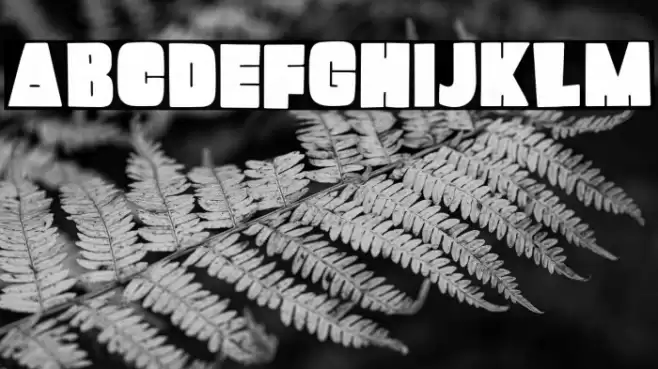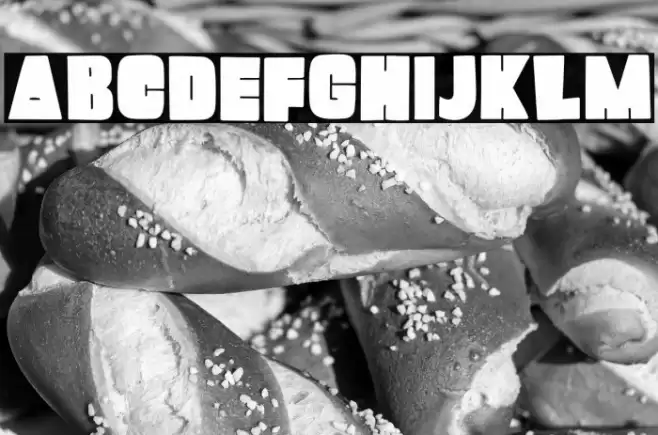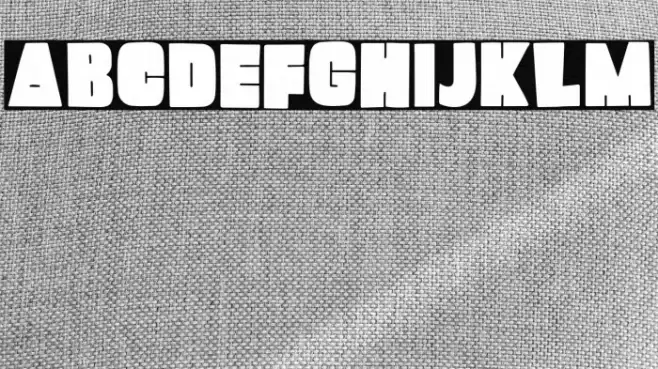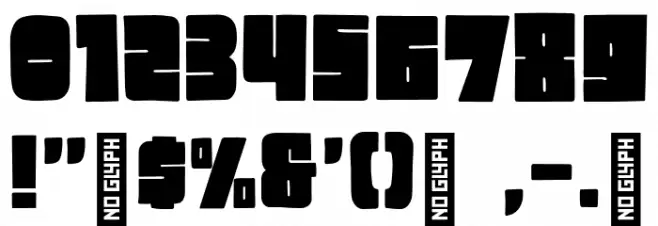
Mango Pudding Font
Mango Pudding Description
This font features bold, blocky characters with a playful and chunky appearance. The letters are uniformly thick, creating a strong visual impact. The style is reminiscent of retro or vintage designs, with a modern twist. The uppercase and lowercase letters maintain a consistent weight, contributing to a cohesive look. The numbers and special characters follow the same bold style, ensuring uniformity across all glyphs. The font's design is suitable for projects that require a strong, eye-catching headline or title.
Bold, blocky font with a playful, retro vibe from Cartoon fonts.
- Font: Mango Pudding
- Proposed Projects: Ideal for posters, logos, branding, and any design needing a bold statement.
- Overall Style: Retro, Modern